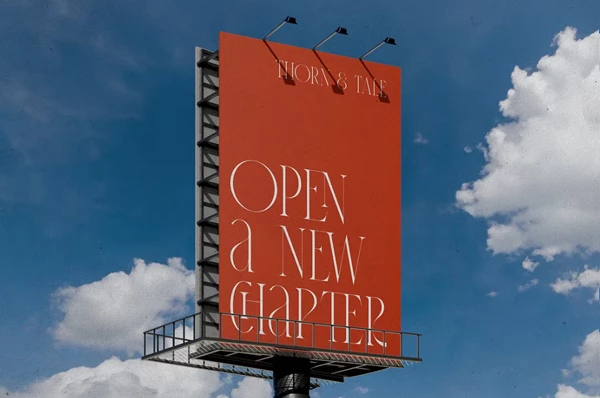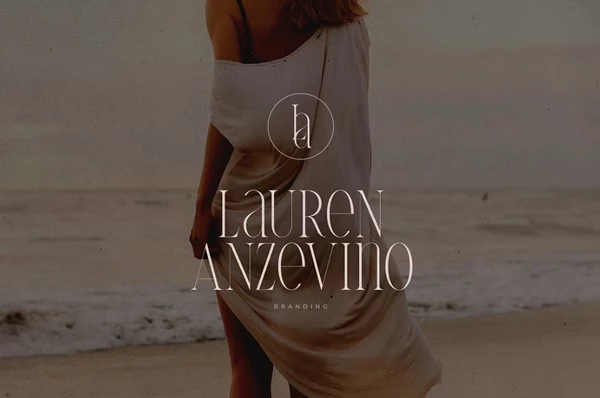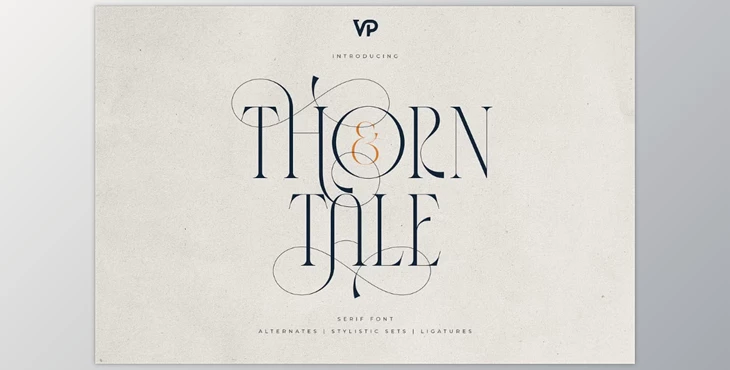
Thorn & Tale – A Refined Serif Font:
Thorn & Tale can be described as an elegant, sophisticated serif font that has dramatic attributes. This typeface can also be classified under luxury branding and envisioning editorial layouts or eye-catching typographical compositions, for it blends bold modernity and old tradition. Thorn & Tale will suit any designer’s need if they are manipulating cover pages for magazines, designing logos, creating marriage invitations, or even branding them as an all-around beautiful option.
Some great features of Thorn & Tale – A Refined Serif Font:
- Comes with more than 250 added characters and ligatures for creative versatility. Includes 16 stylistic sets for flexibility in design and work optimization.
- Supported by 87 Latin-based languages, which guarantees global reach
- Ideal for logos, magazines, book covers, packaging, fashion, as well as wedding branding.
By using Thorn & Tale, designers can sculpt stunning typographic artworks owing to the typeface’s wondrous curves and everlasting gold proportions, together with extended serifs. Thorn & Tale users can find alternates with ease when working on software like Adobe InDesign, Illustrator, or Photoshop, enabling them to incorporate their projects effortlessly.